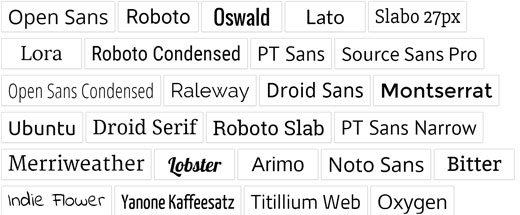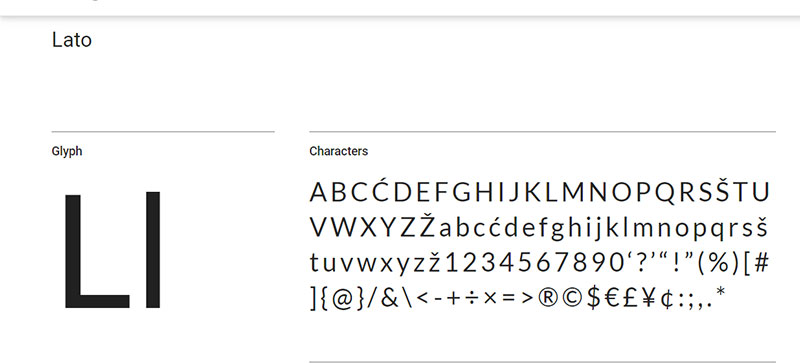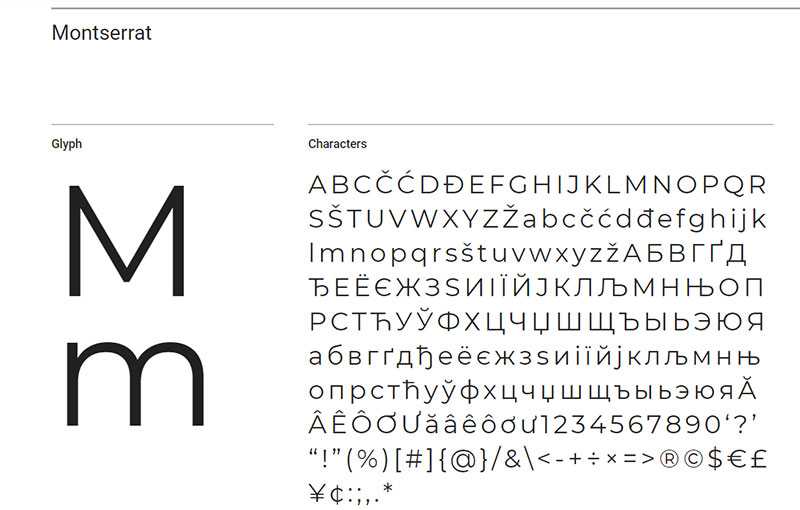
Best Fonts Wordpress
Best Fonts Wordpress. It’s compatible with any wordpress theme and adds a ‘typography’ tab to your wordpress theme customizer. As you have enough choices, you can experiment with different fonts and pick out the best one for your website.
Best and Free Font Plugins in WordPress for 2021
Roboto is a great choice because it looks professional and modern. Other good choices include open sans, calibri, and helvetica neue. These fonts are a bit of an anomaly and feature even strokes with very bulky serifs — the feet at the bottom of letters.
Linotte Is A Sans Serif Typeface With A Rounded, Friendly Look To It.
When it comes to style, traveling_typewriter also keeps things light. This list of wordpress font plugins includes a single premium plugin. That, on top of a few small design quirks, make this font a good choice for projects that require a more down to earth look.
You Will Also Have More Extendiblity.
Using the typography tab, you can change fonts while viewing a live preview of your changes in real time. Designers have an incredible choice of free fonts to choose from. For further reading on typography, check out more in depth typeface classifications at typedia.
It also has a clean design that will make your blog posts look crisp and neat. Create a new post or page in wordpress, then add the google fonts block in the block editor. It’s most popular in the us but boasts high usage from japan to brazil.
Easy Google Fonts Lets You Use The Library Of 1,300+ Google Fonts On Your Wordpress Site.
This plugin is devoted entirely to managing fonts, unlike many other premium plugins that include font management as one of their features. As serif fonts are considered easier to read, they’re typically used in print design as the characters are clearer and more distinctive, making it much easier for our brains to process. What’s the best font for blogging?
This Font Features Thin Stems, And The Design Is A Bit Wobbly.
Bavro is a simple, clean font perfect for headings, developed by marcelo reis melo, and available for free in multiple formats. Color palettes, ui interactions, navigation layout, choosing the best font for your website, and much, much more. You have dropdowns for selecting elements like block type, font, font size, and more.